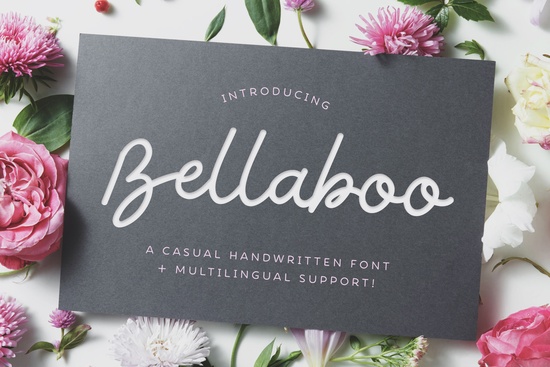
If you've been searching for a handwritten script font that feels personal without looking messy, Bellaboo font is worth a closer look. It has that natural signature flow that works beautifully for logos, wedding invitations, branding projects, blog headers, and even t-shirt designs. Whether you're a designer juggling client work or a small business owner building your own brand identity, Bellaboo offers that warm, handwritten touch many creative projects call for.
What Makes Bellaboo a Good Choice for Script Font Projects?
Not every handwritten font is created equal. Some look too casual, others are hard to read at smaller sizes. Bellaboo sits in a comfortable middle ground. It carries the elegance of a flowing signature script while staying legible enough for real-world use. The letterforms connect smoothly, and the overall rhythm feels natural like someone actually sat down and wrote it by hand.
For designers working on branding packages, this matters. A script font that looks authentic can make a logo feel approachable and human. For print-on-demand sellers, a clean handwritten style helps designs stand out on products like mugs, tote bags, and posters without overwhelming the rest of the layout.
Where Can You Use a Handwritten Signature Font Like This?
Bellaboo's versatility is one of its strongest points. Here are some common projects where it fits right in:
- Wedding invitations and event stationery the flowing script adds a romantic, personal feel
- Logo design especially for boutique brands, bakeries, beauty products, and lifestyle blogs
- Social media graphics quotes, announcements, and promotional posts
- T-shirt and merchandise design pairs well with simple sans-serif fonts for contrast
- Blog headers and website elements gives a creative, handcrafted look
- Greeting cards and posters ideal for seasonal and everyday designs
The key with any script font is pairing it well. Bellaboo works best alongside a clean, simple typeface. Think of it as the star of your design, with a neutral font handling the supporting text.
How Does Bellaboo Compare to Other Script Fonts?
There are plenty of handwritten and script fonts available, so how does Bellaboo hold up? Let's look at a few similar options you might come across while browsing.
If you prefer something with a slightly more relaxed, casual flow, Reaches has that laid-back handwritten energy. For projects that need a more dramatic, stylish script, Twenty Night leans into bolder strokes and a modern signature look. Meanwhile, The Sunnyside brings a cheerful, upbeat vibe that works well for playful branding and kid-focused designs.
On the other hand, if you want something that feels more like everyday handwriting with a creative twist, Breakfast is another solid option. Each of these fonts has its own personality, and the right choice depends on the mood you're going for.
What sets Bellaboo apart is its balance. It's elegant without being overly formal, and personal without being too casual. That makes it a reliable go-to for a wide range of projects.
Tips for Getting the Most Out of Bellaboo
Here are a few practical tips if you decide to use Bellaboo in your work:
- Keep your sizing in mind. Script fonts like Bellaboo look best at larger sizes where the letter details can shine. For body text, stick with a simpler font.
- Watch your spacing. Handwritten fonts sometimes need a little extra letter-spacing or line-height to stay readable, especially on screen.
- Pair it wisely. Combine Bellaboo with a clean sans-serif for headings and body copy. This contrast keeps your design balanced and easy to read.
- Test on mockups first. Before finalizing a design, preview the font on your actual product mockups to make sure it looks right at the intended size and context.
Is Bellaboo the Right Font for Your Next Project?
That really depends on what you're making. If your project calls for a handwritten signature style that feels genuine and polished, Bellaboo is a strong contender. It handles branding, invitations, and merchandise with ease, and it pairs well with a variety of other fonts you might already have in your collection.
For crafters and creative hobbyists, it's an easy font to pick up and start using right away. For professional designers, it's a solid addition to your toolkit that you'll find yourself reaching for more often than you'd expect.